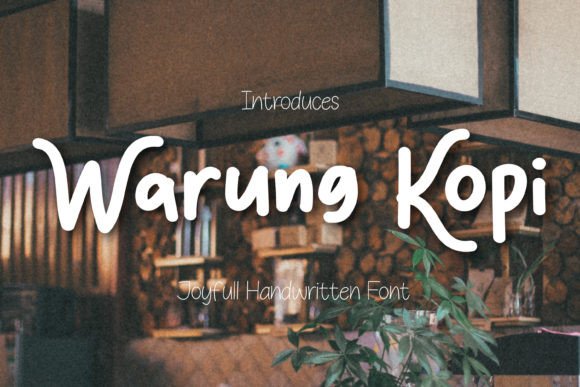
Behold, the captivating Warung Kopi font, a calligraphic masterpiece that weaves charm and elegance into your designs. Born from the imagination of Creassion Studio, this script font exudes a touch of vintage allure and a dash of modern flair. Its distinct ligatures and authentic imperfections create a personal touch that will make your projects stand out.
Warung Kopi is not just a font; it's an experience. It's the perfect companion for your creative endeavors, whether you're crafting stunning menus, heartfelt invitations, eye-catching social media posts, or captivating flyers. Its versatility knows no bounds, making it the go-to choice for designers seeking a font that speaks volumes.
Imagine your words dancing across the page, infused with the charm of Warung Kopi's graceful curves and intricate details. Its playful personality adds a spark of joy to any project, while its timeless elegance ensures that your designs remain relevant and captivating for years to come.